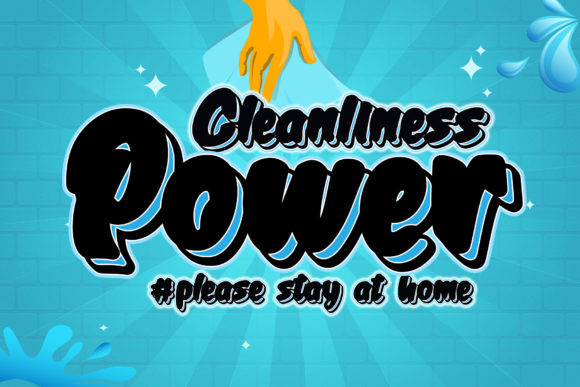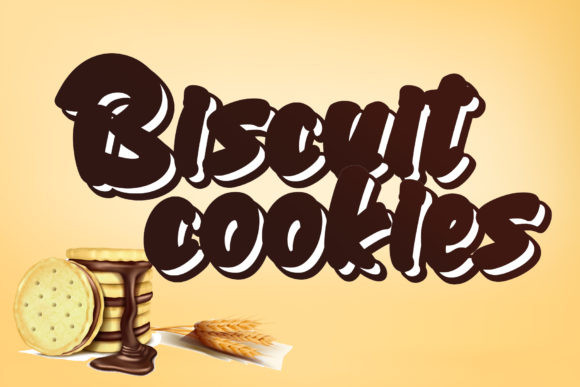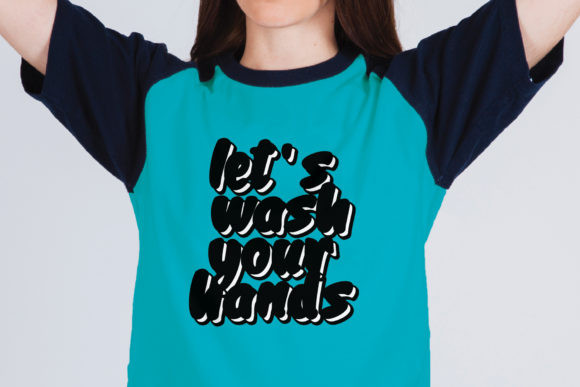
Cleanliness Power Font
Cleanliness Power is a bold script that looks elegant and classy. It will add a charming touch to anything project
This font is PUA encoded which means you can access all of the cute glyphs and swashes with ease! It also features a wealth of special features including alternate glyphs and ligatures.